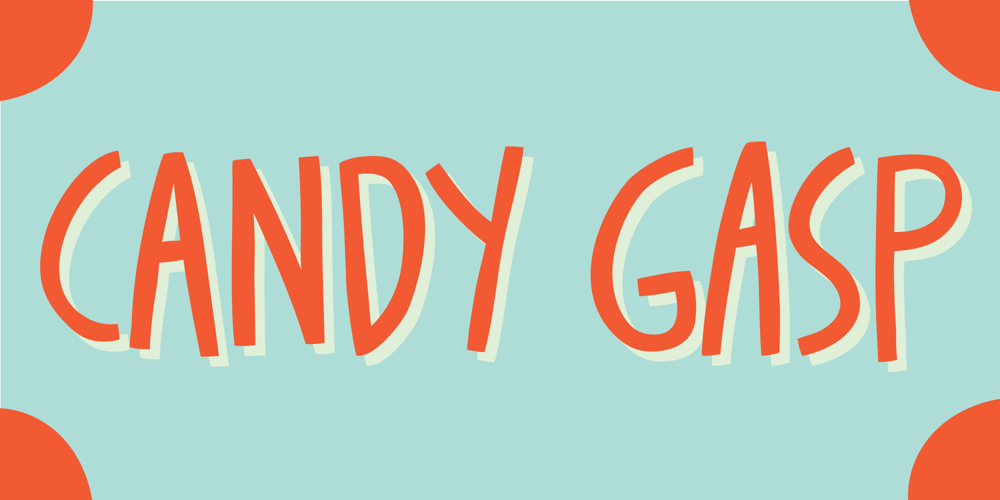
Candy Gasp Font Family was designed by Jakob Fischer and published by PizzaDude.dk. Candy Gasp contains 2 styles and family package options. Each letter is handmade and then carefully cleaned up by hand, keeping the original handwritten feeling, but looking more sharp. On top of that, each letter has 4 different versions, and they automatically changesas you type – levaving your text more organic, vibrant and lively!